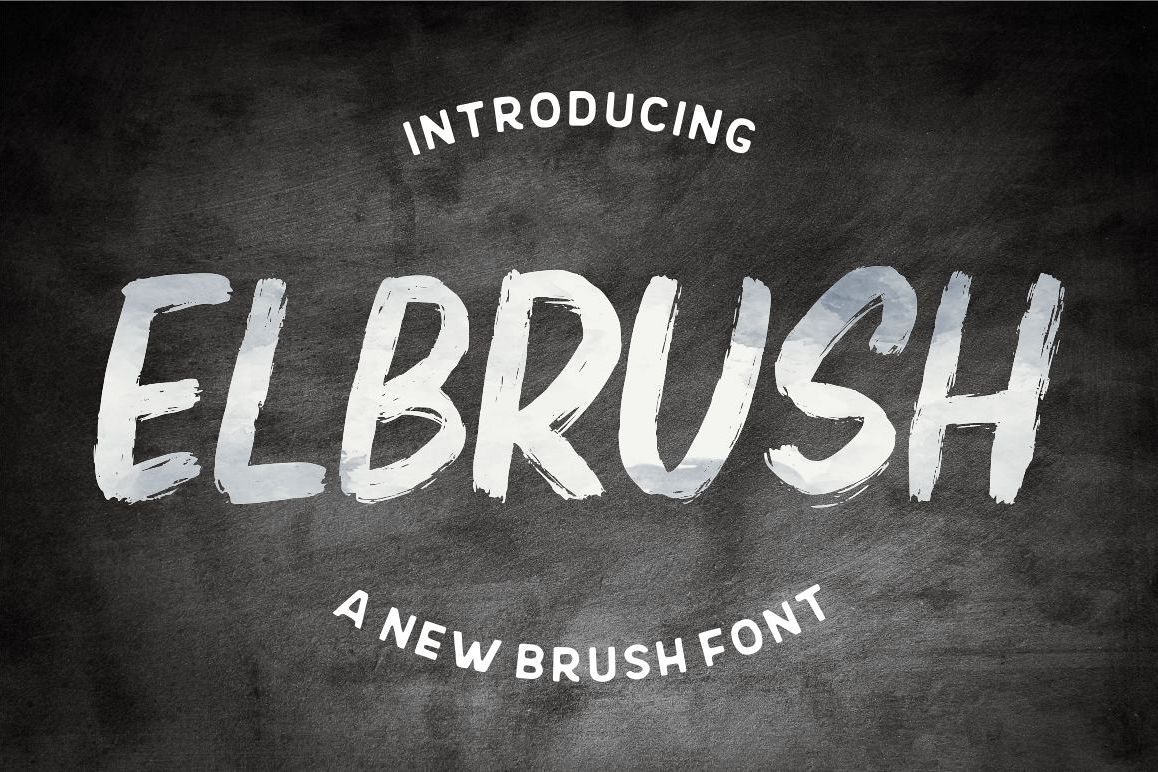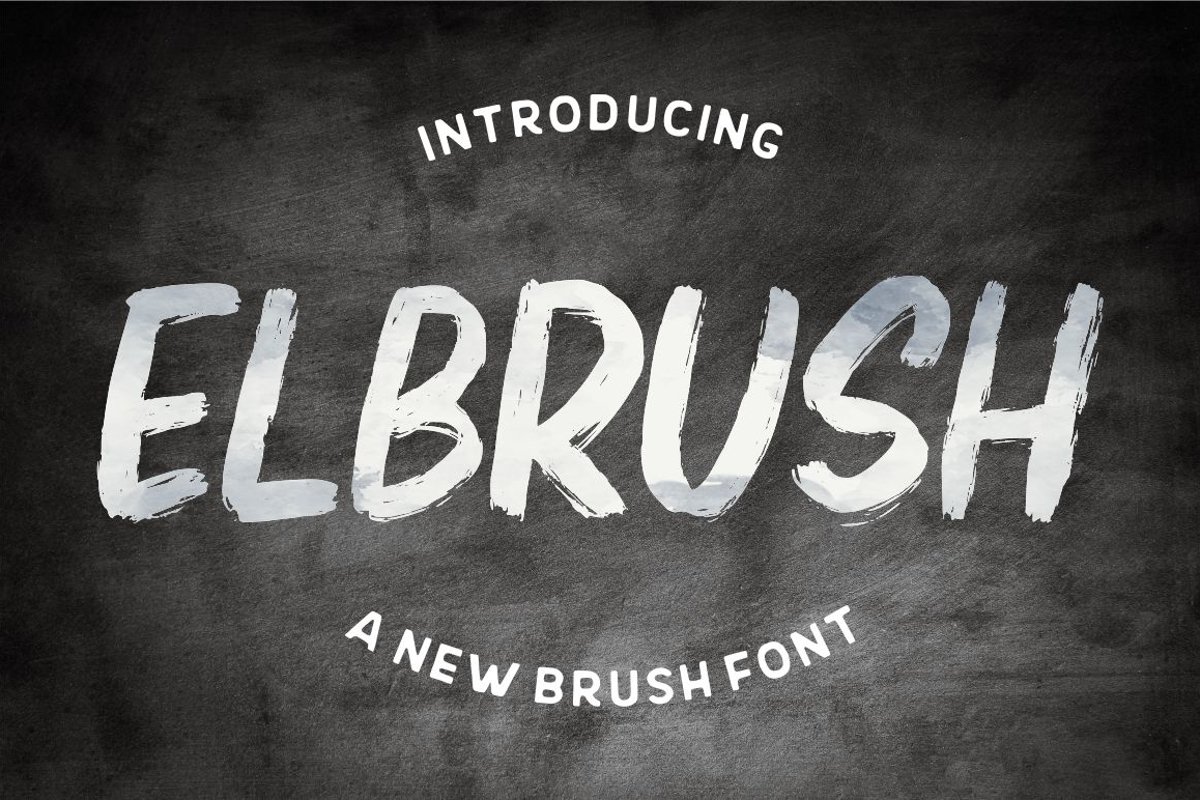
Elbrush - New Brush Font
Elbrush
Introducing Elbrush - A New Brush Font
Elbrush  combines attractive curves with a fresh urban edge; delivering a stylish script which is guaranteed to add an eye-catching appeal to your logo designs, brand imagery, handwritten quotes, product packaging, merchandise & social media posts
- Detailed dry brush